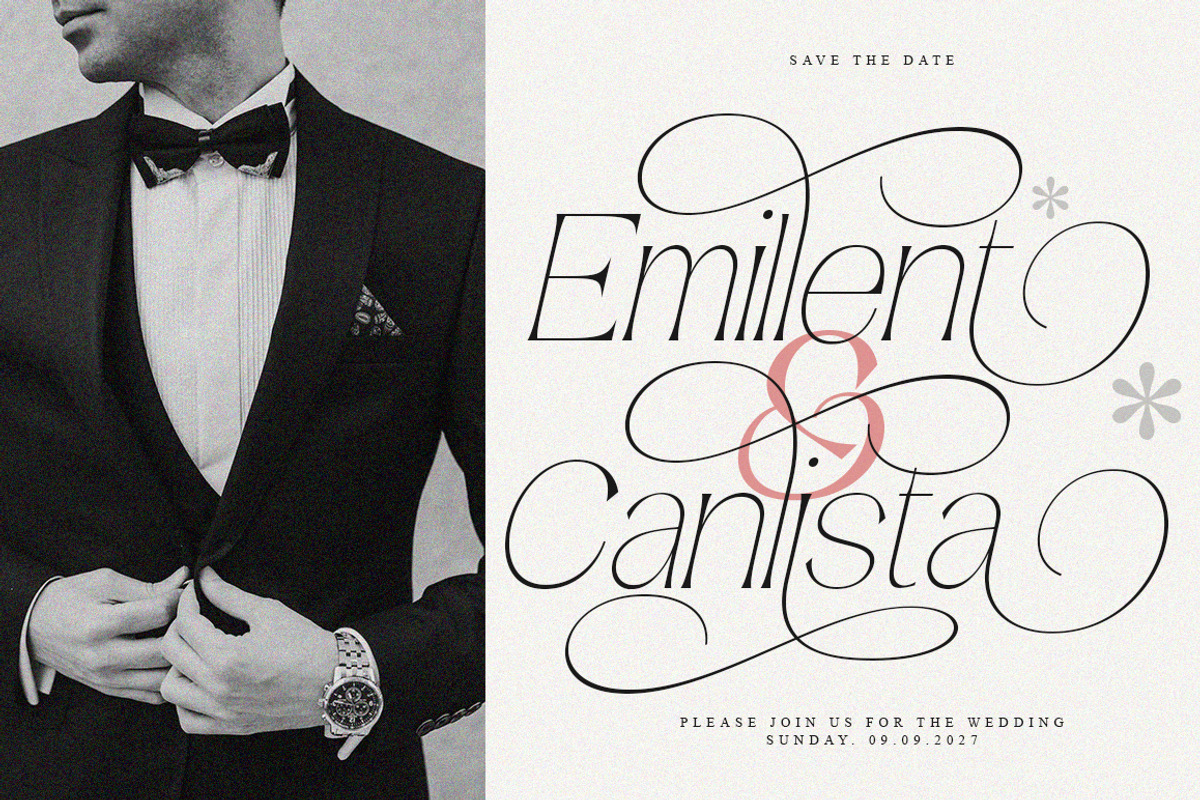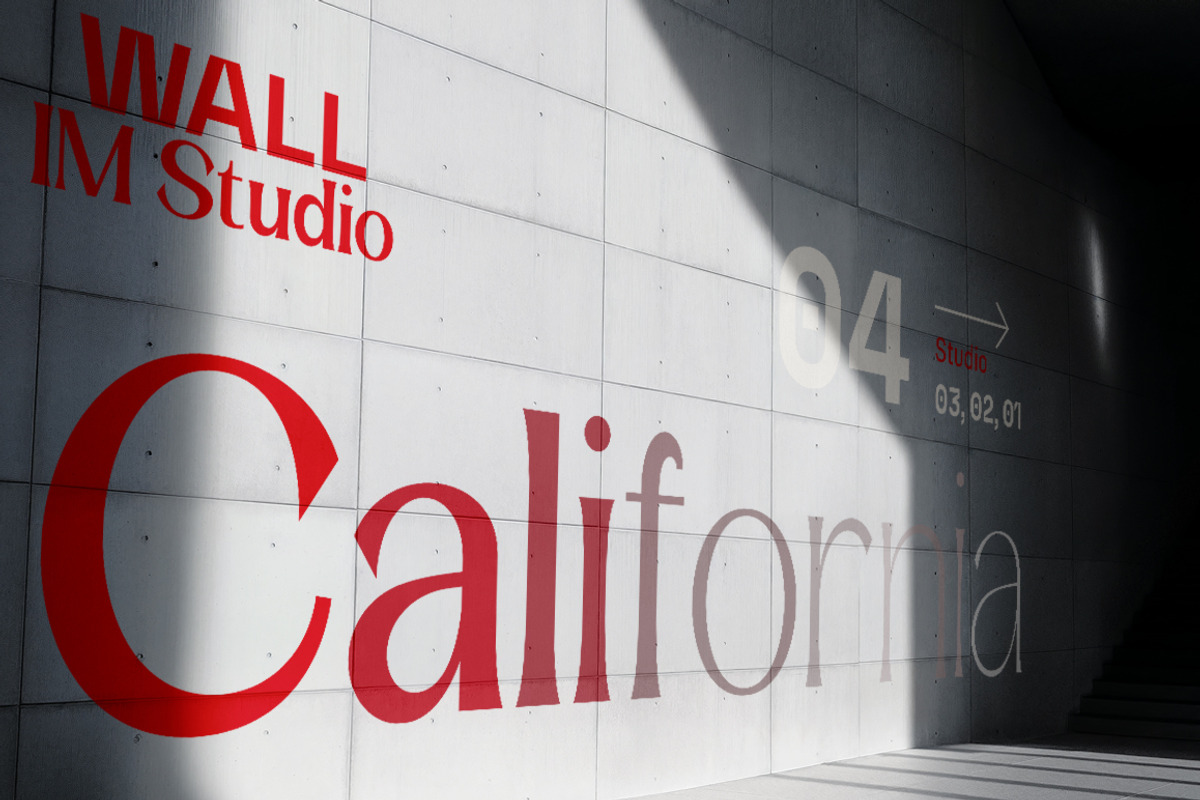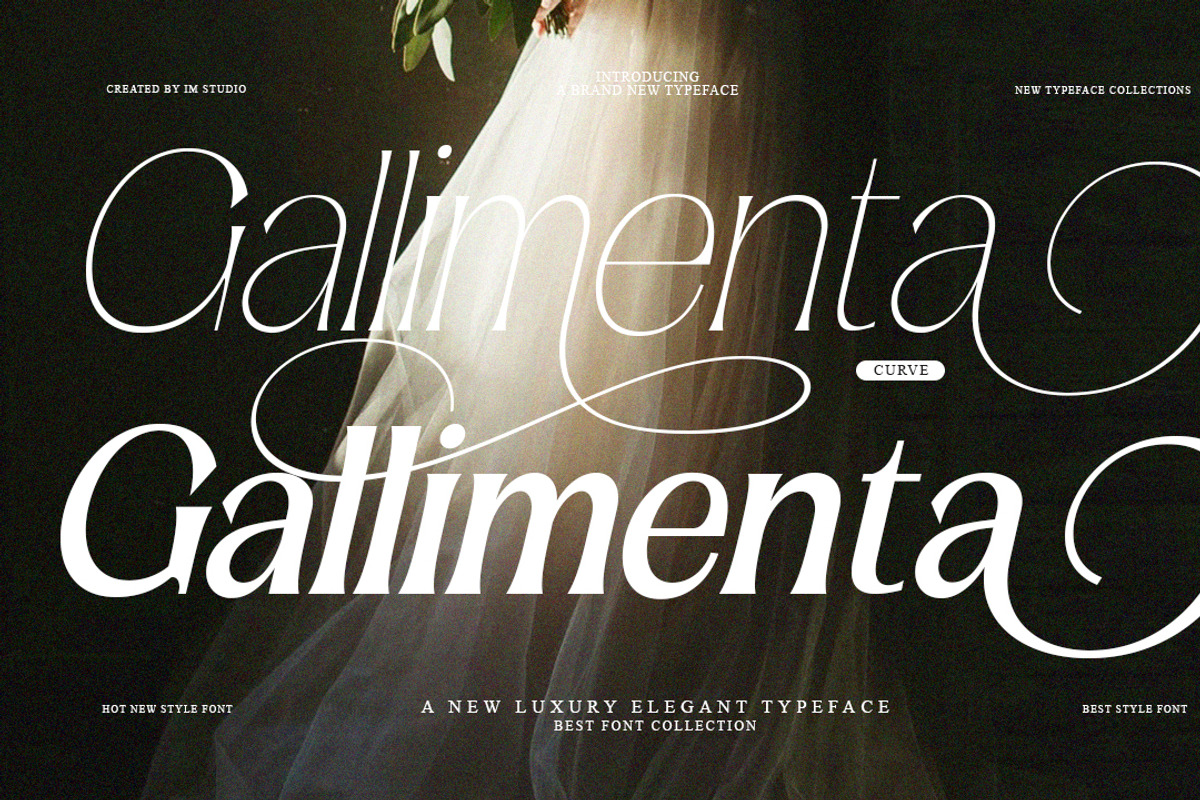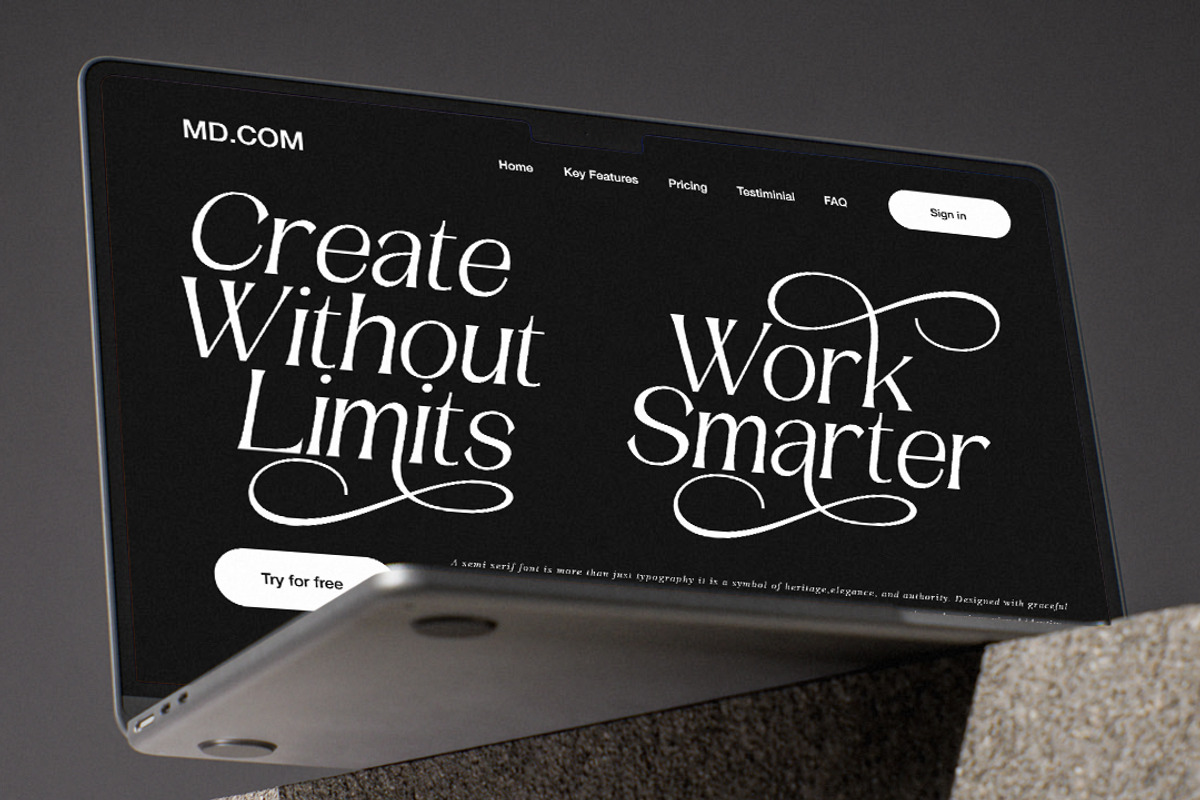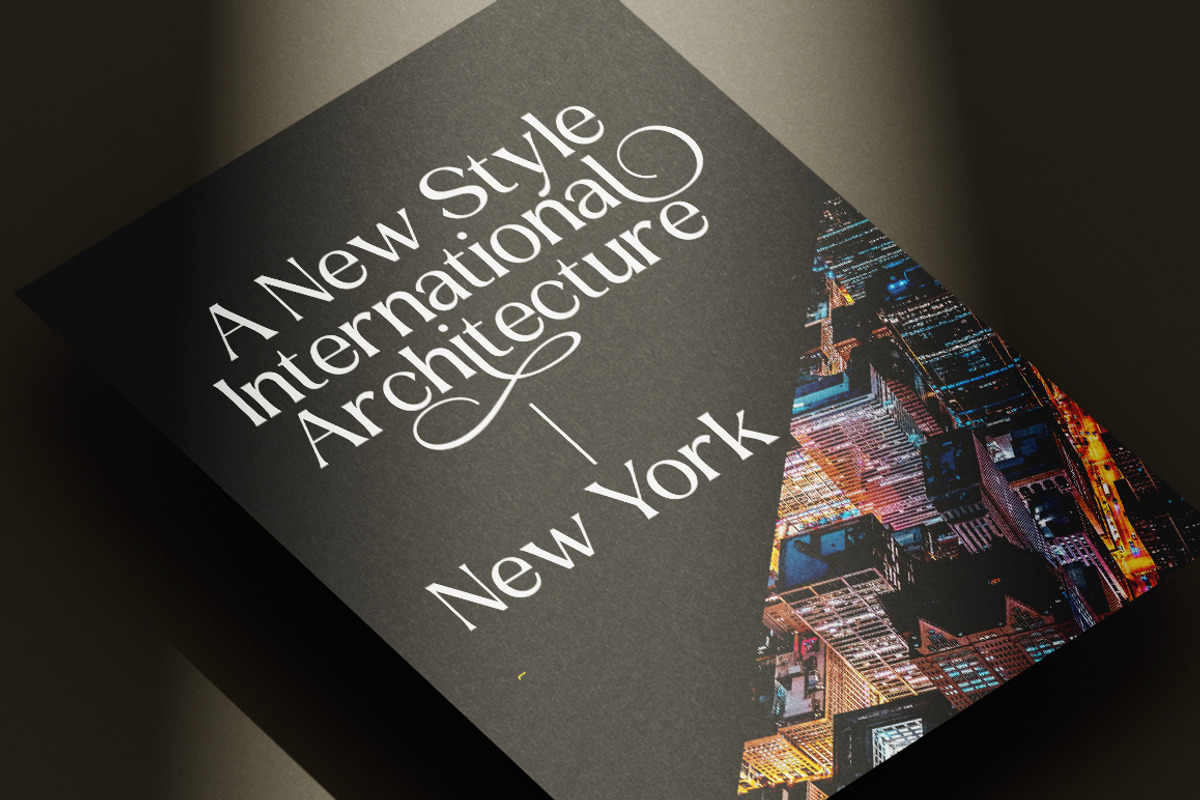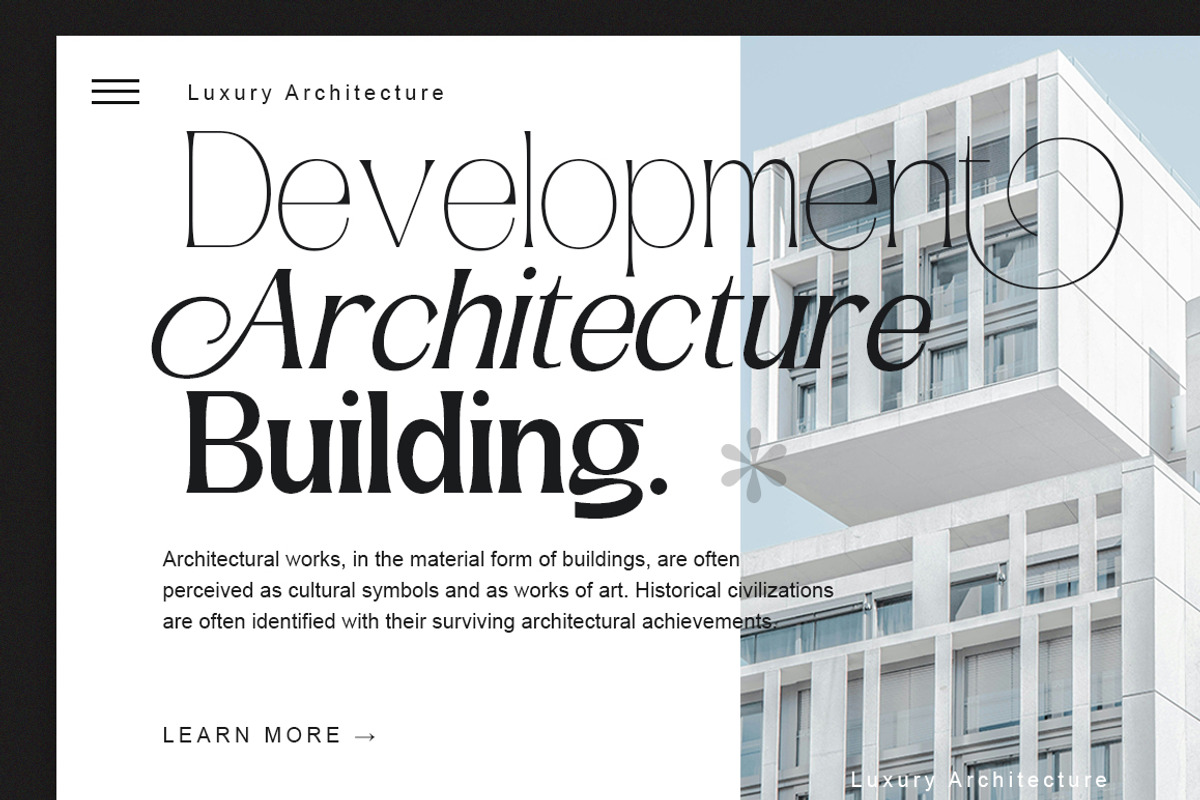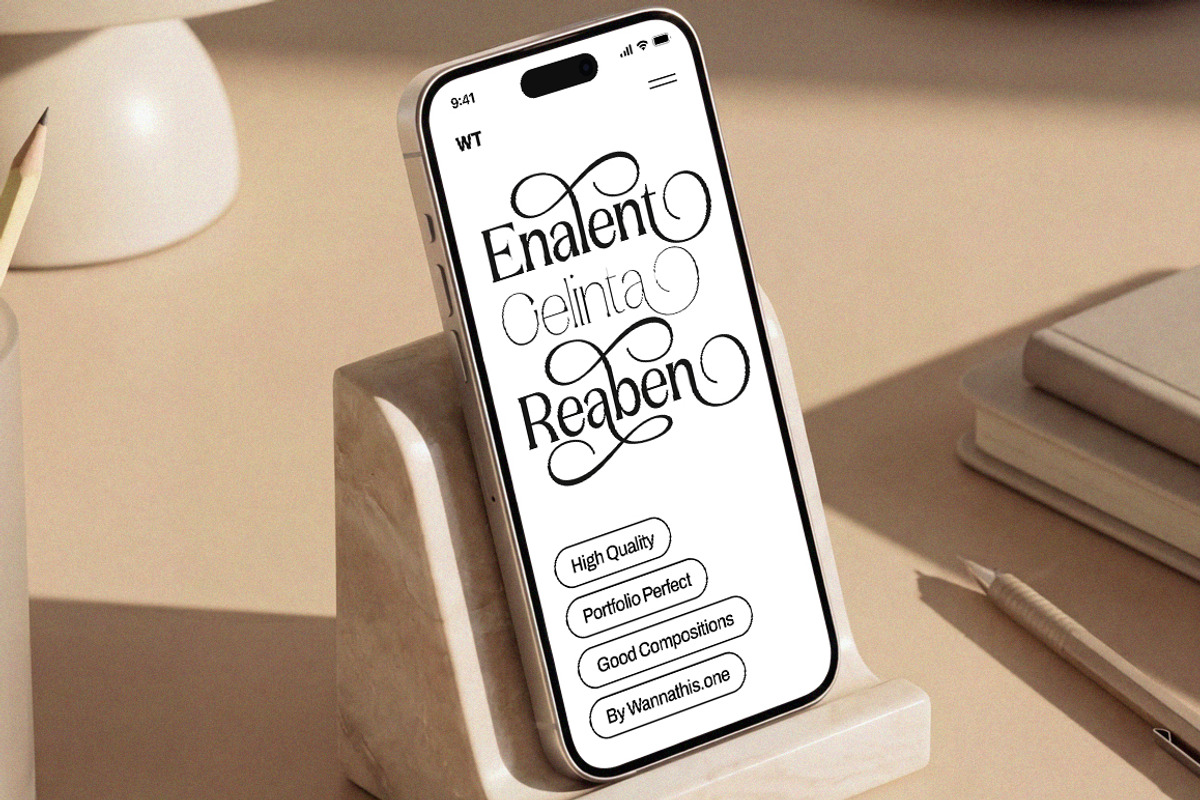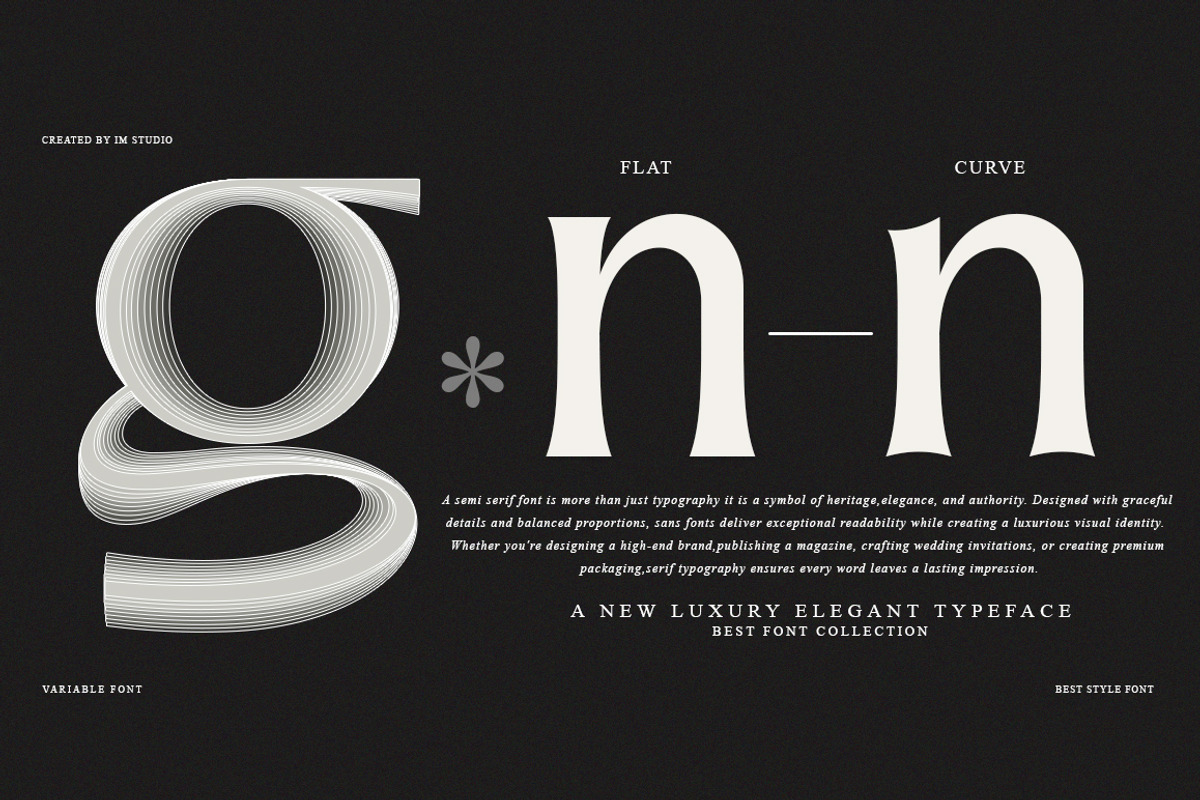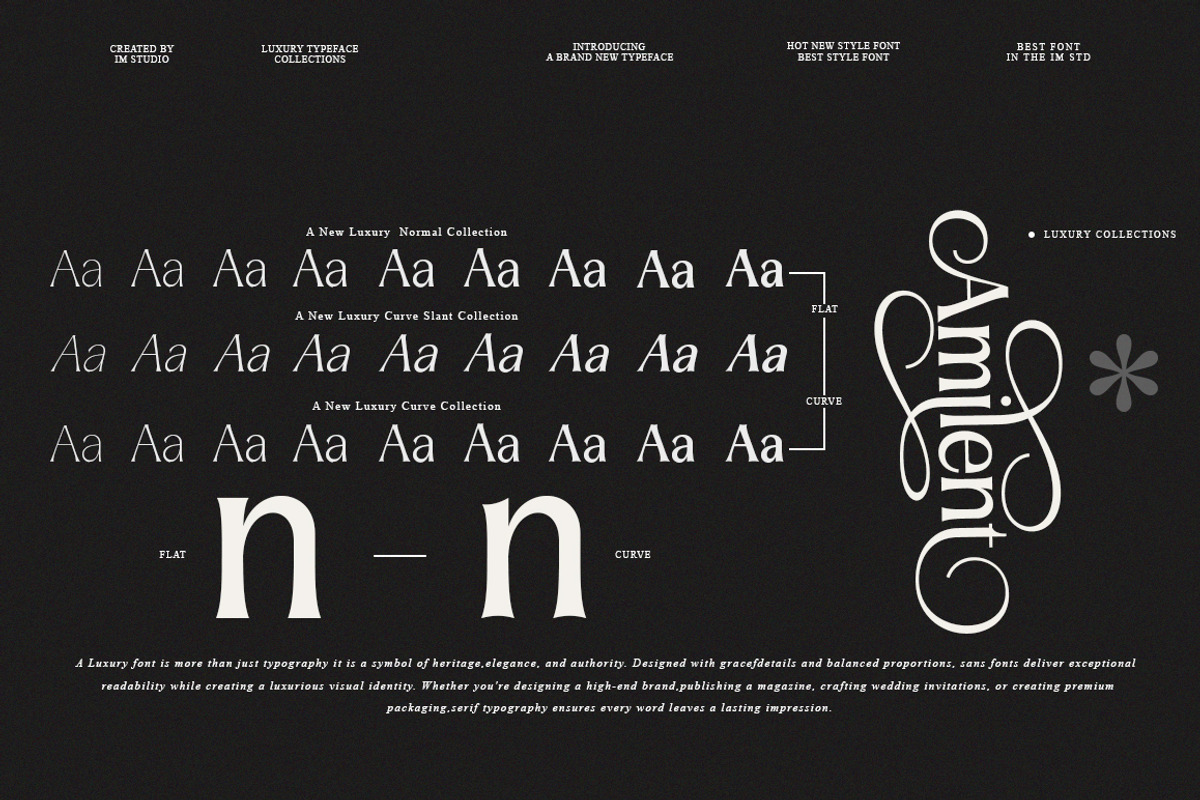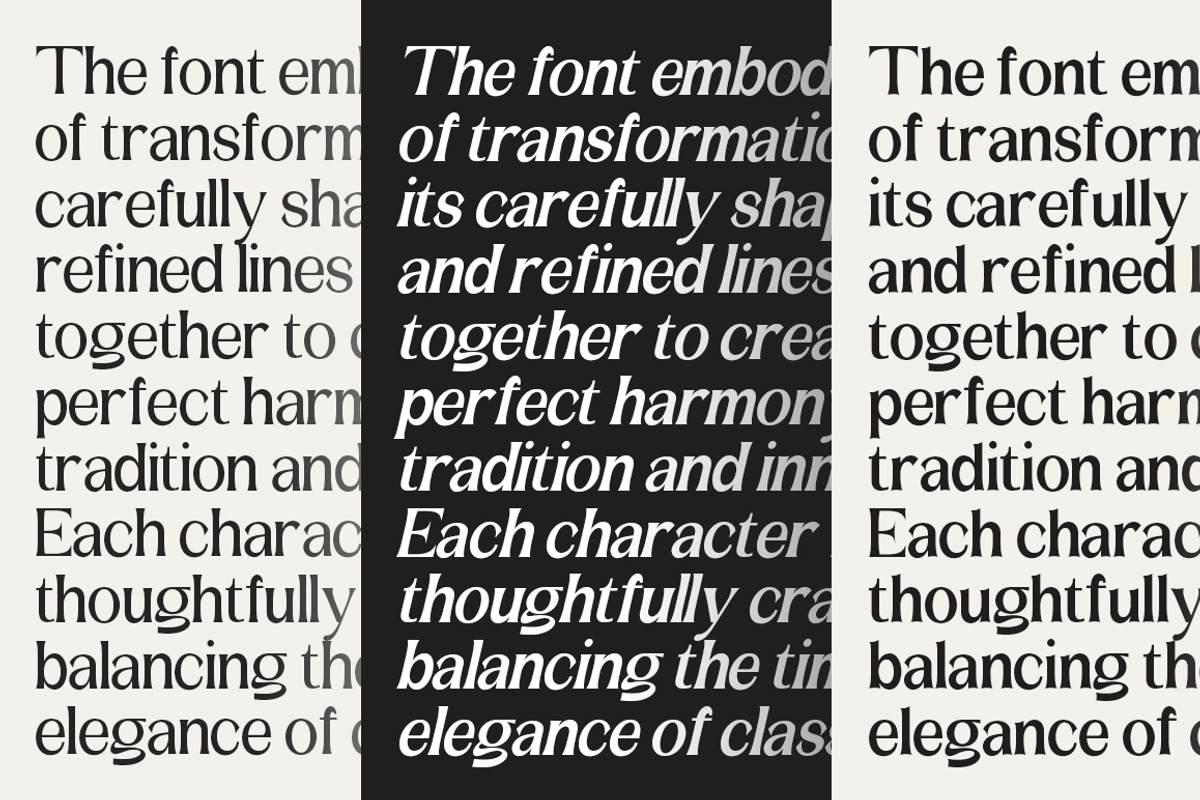
Amilent | 36 Style Font
Amilent | 36 Style Semi Serif & Slant Typeface for the Modern Creative
Where precision meets elegance. Amilent is a meticulously crafted typeface family that bridges the gap between modern clarity and timeless sophistication. Every letterform is engineered with deliberate balance — clean structure, subtle contrast, and refined curves that command attention without demanding it. Whether you're setting a headline or composing a full editorial spread, Amilent adapts effortlessly, bringing a quiet confidence to every design it touches.
The Typeface, Defined Step into a world where typography becomes an experience. Amilent's harmonious proportions and contemporary sensibility make it equally at home in bold brand identities and delicate, refined compositions. Its purpose-built italic style — a true slant design, not a mechanical lean — introduces a natural sense of movement and rhythm, giving your work a dynamic yet polished character. Three distinct styles. One unified vision.
Key Features ✦ Modern Clarity — A clean, structured architecture ensures effortless readability at any size, from fine print to large-format displays, without sacrificing elegance. ✦ Elegant Ligatures — A curated selection of sophisticated ligatures elevates your typography, adding expressiveness and visual refinement to every word. ✦ Advanced OpenType Features — Full OpenType support gives designers precise typographic control: fine-tune spacing, alternate glyphs, stylistic sets, and more. ✦ Extensive Language Support — With support for over 90 languages, Amilent is built for the world stage, ideal for brands and creatives with a global voice. ✦ True Slant Italic Design — Unlike a simple oblique, the italic style is purpose-built from the ground up, flowing naturally alongside the upright styles for a seamless, organic feel.
Made For
Use CaseWhy It WorksEditorial & PublishingExceptional readability for magazines, books, and long-form printBranding & IdentityClean, modern forms that build memorable, lasting impressionsWeb & Digital DesignOptimized for clarity and legibility across all screen sizesPackaging & PrintAdds a premium, contemporary touch to physical materialsInvitations & StationeryElegant and versatile — equally suited to formal and creative occasions